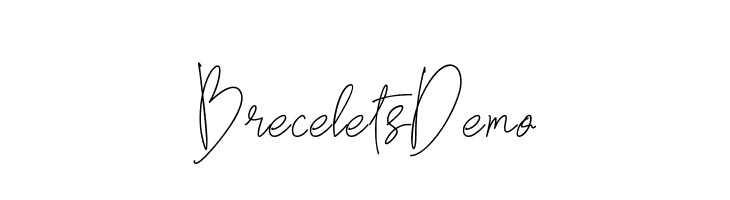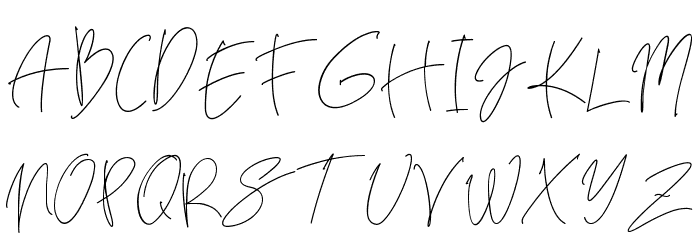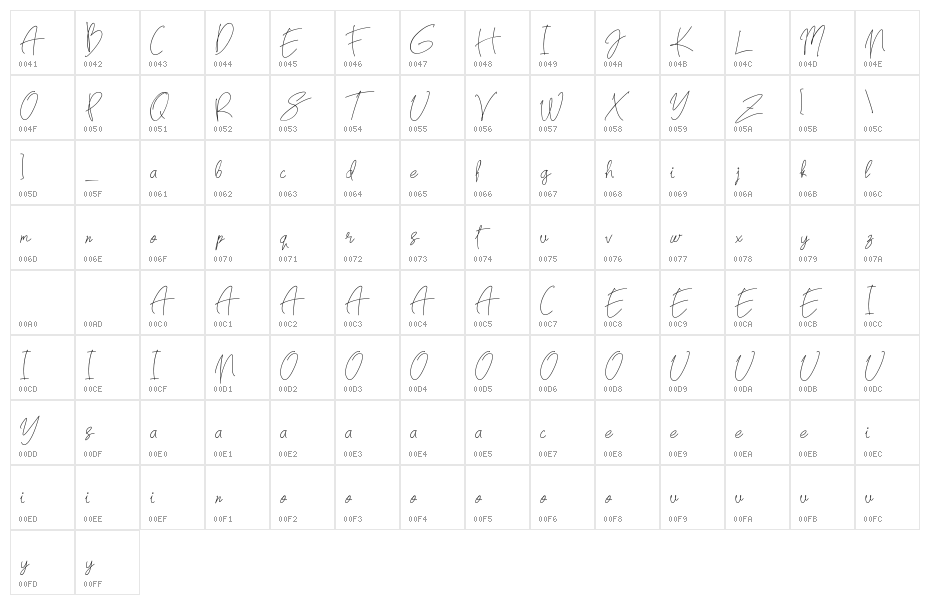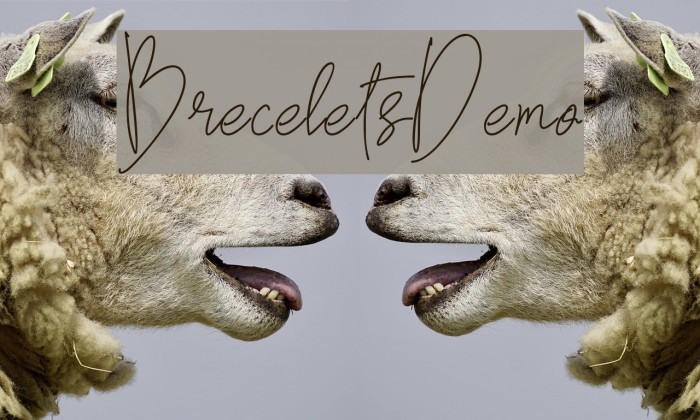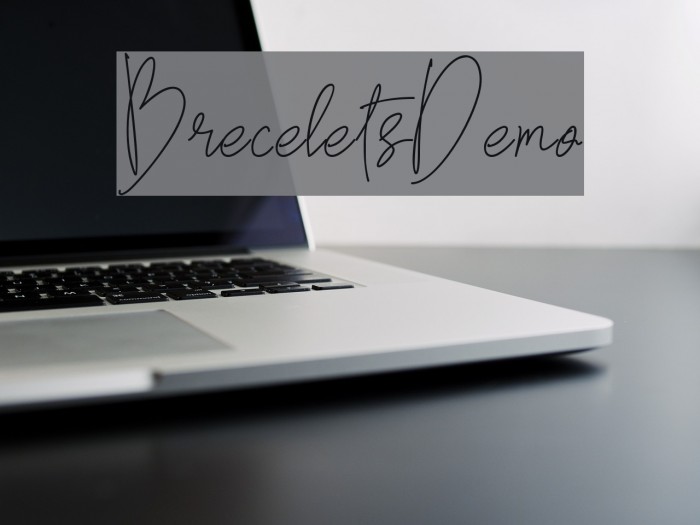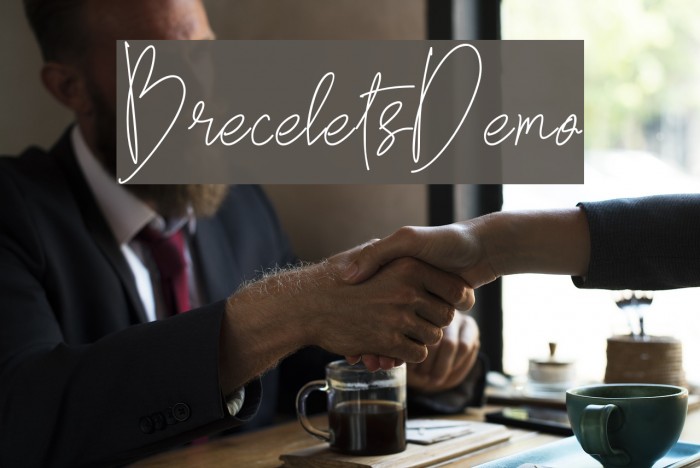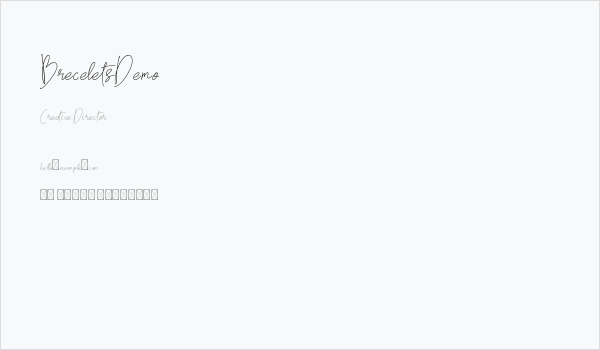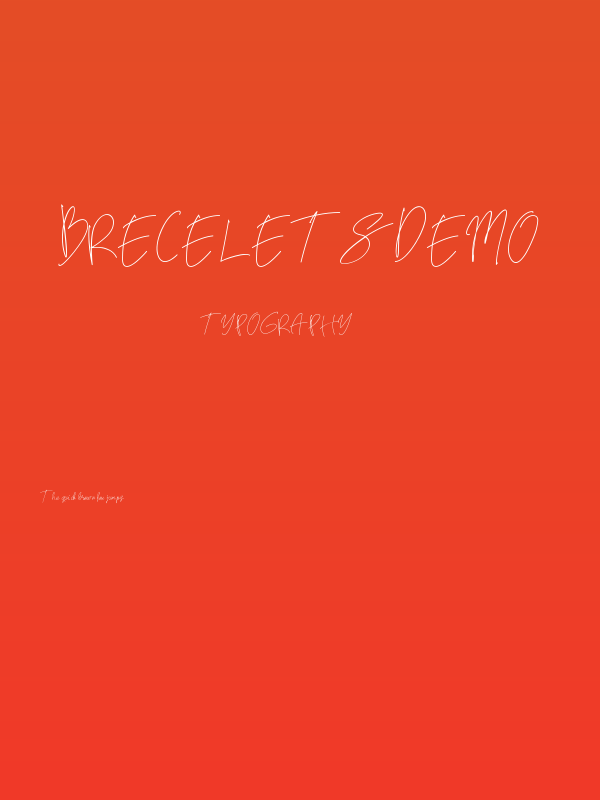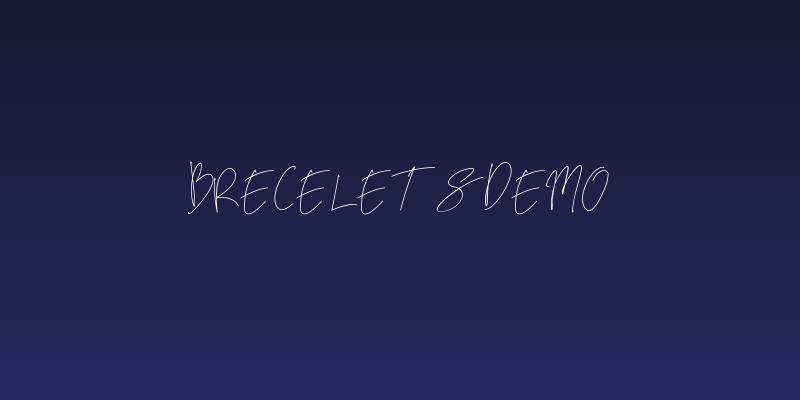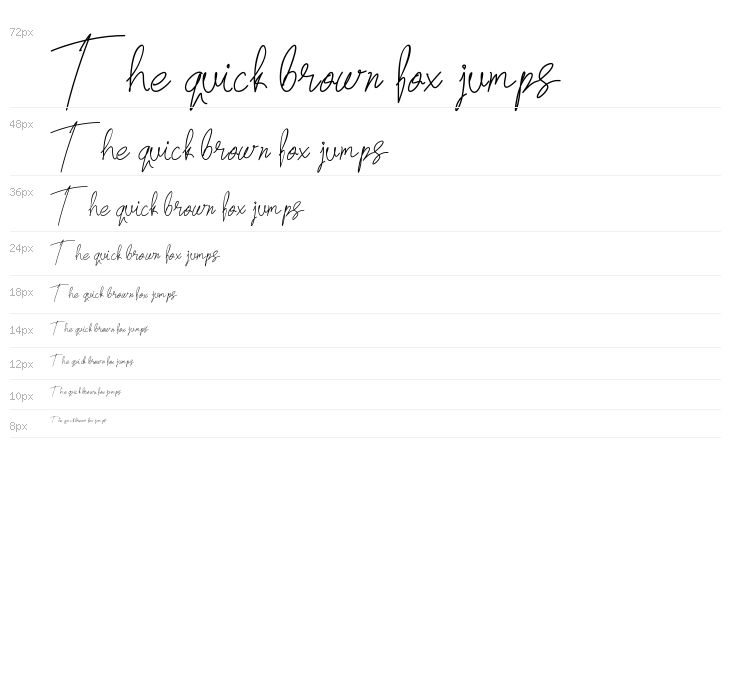
BreceletsDemo Font
BreceletsDemo Description
This font features a delicate, handwritten style with a flowing, cursive appearance. The uppercase letters are tall and slender, with a slight slant that adds a sense of elegance and movement. The lowercase letters maintain a consistent style, with smooth, connected strokes that enhance the handwritten feel. The overall design is airy and light, with a playful yet sophisticated charm. The characters are well-spaced, ensuring readability while maintaining the artistic flair. This font is ideal for projects that require a personal touch, such as invitations, greeting cards, or branding materials that aim to convey a sense of elegance and creativity.
| Overall Style | Elegant, Artistic |
| Use Case | Invitations, Greeting cards, Personal branding |
| Proposed Projects | Ideal for wedding invitations, personal branding, greeting cards, and artistic projects. |